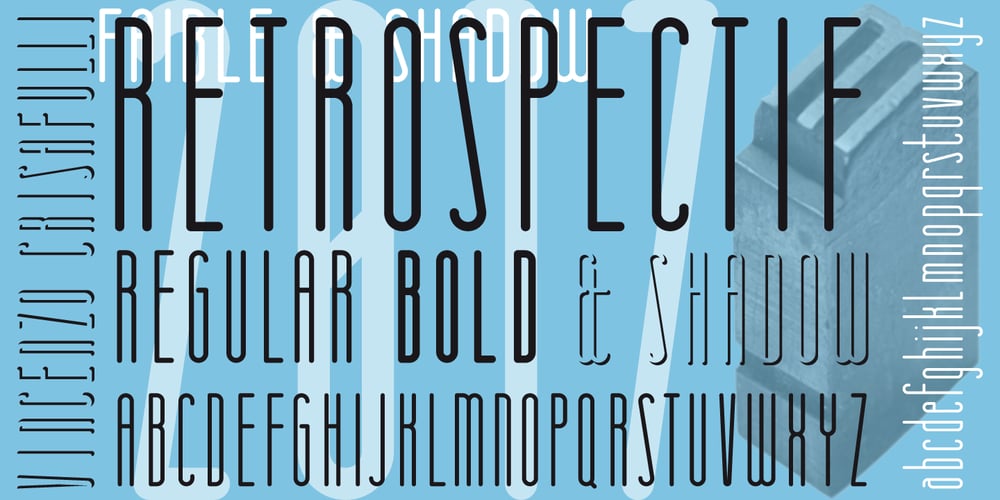
Rétrospectif Font Family was designed by Vincenzo Crisafulli and published by Vincenzo Crisafulli. Rétrospectif contains 6 styles and family package options. Rétrospectif is a tribute to the fonts of the Thirties and Forties. It consists of two families, Rétrospectif and Rétrospectif faible. The two families differ in height: Rétrospectif is particularly stretched, Rétrospectif Faible is lowest. The latter, compared to Rétrospectif, presents shorter ascending and descendants and more rounded eyelets. The glyphs’ structures are modular.